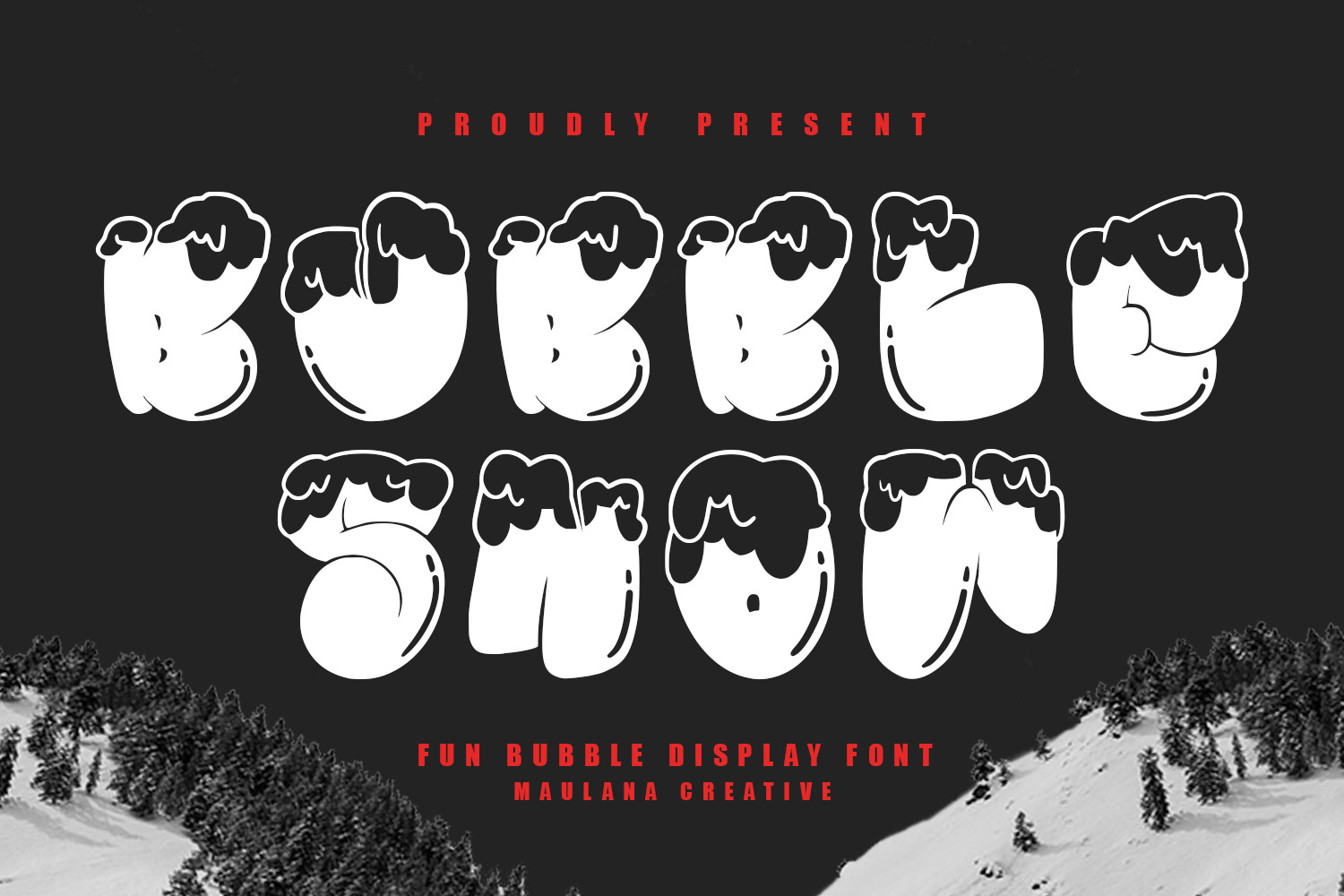
Bubble Snow Fun Display Font
Bubble Snow display font. With bold stroke and fun character to give you an extra creative work. Bubble Snow display font support multilingual language. This font is good for logo design, Social media, Movie Titles, Books Titles, a short text even a long text letter and good for your secondary text font with script or serif. Make a stunning work with Bubble Snow display font.